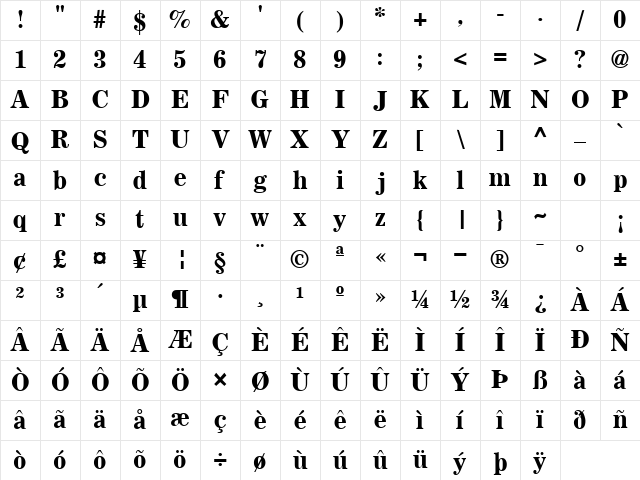
LockupSSK Bold
Design Context for LockupSSK
LockupSSK is a composed and adaptable typeface that performs quietly and consistently across a wide range of design contexts. Its bold stroke weight gives it real presence on the page.